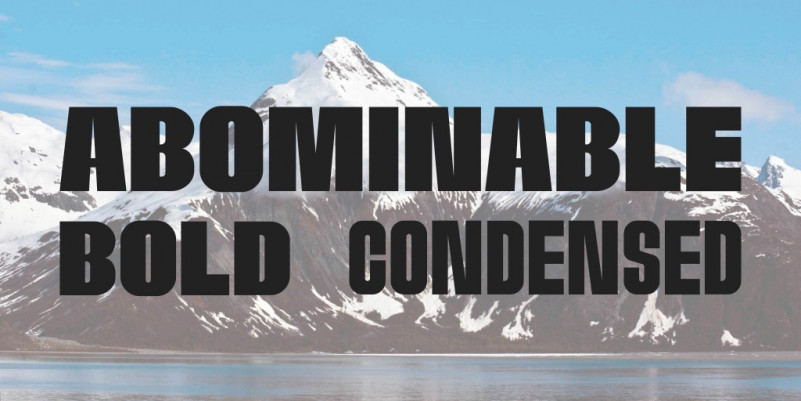
Abominable Font
Abominable Sans Serif Font, This font has an elegant and distinct style that makes it visually different from many other fonts. It makes your design stand out from the rest.This font will give a unique touch to your design. Never put off using this cool font, as it will help you give extra zest to all kinds of work.